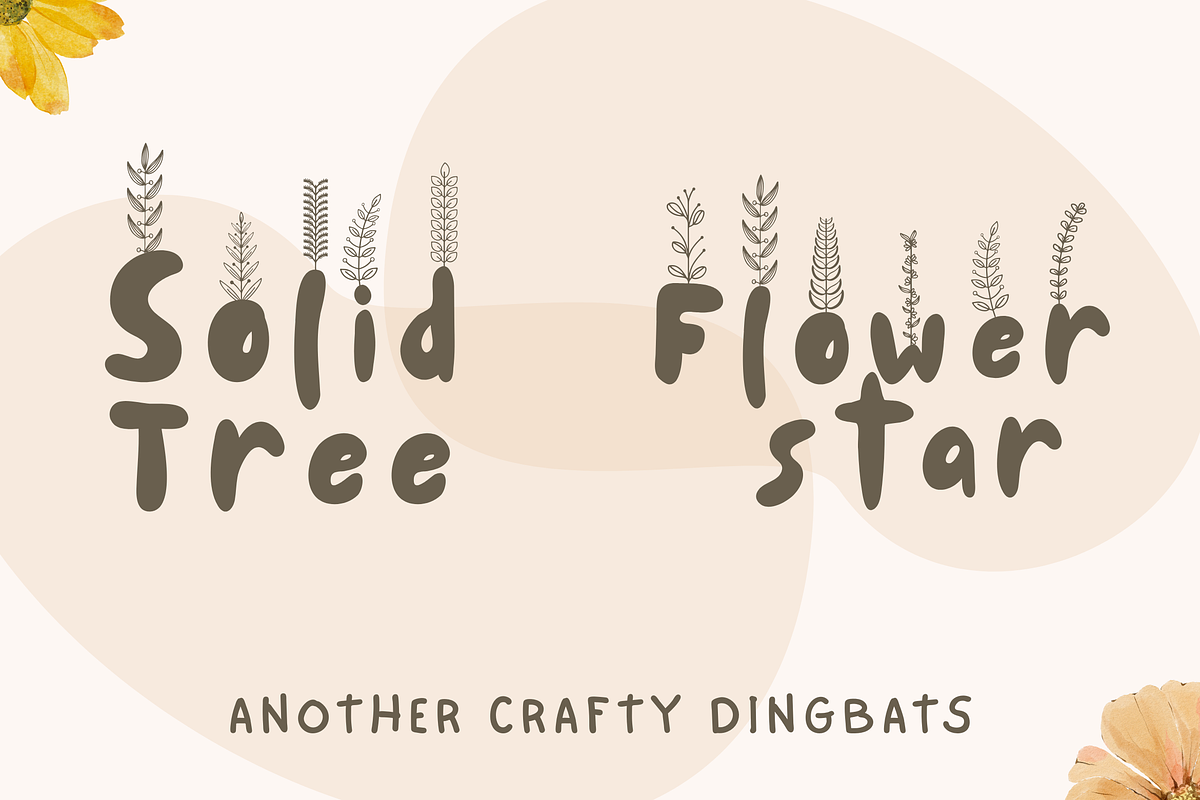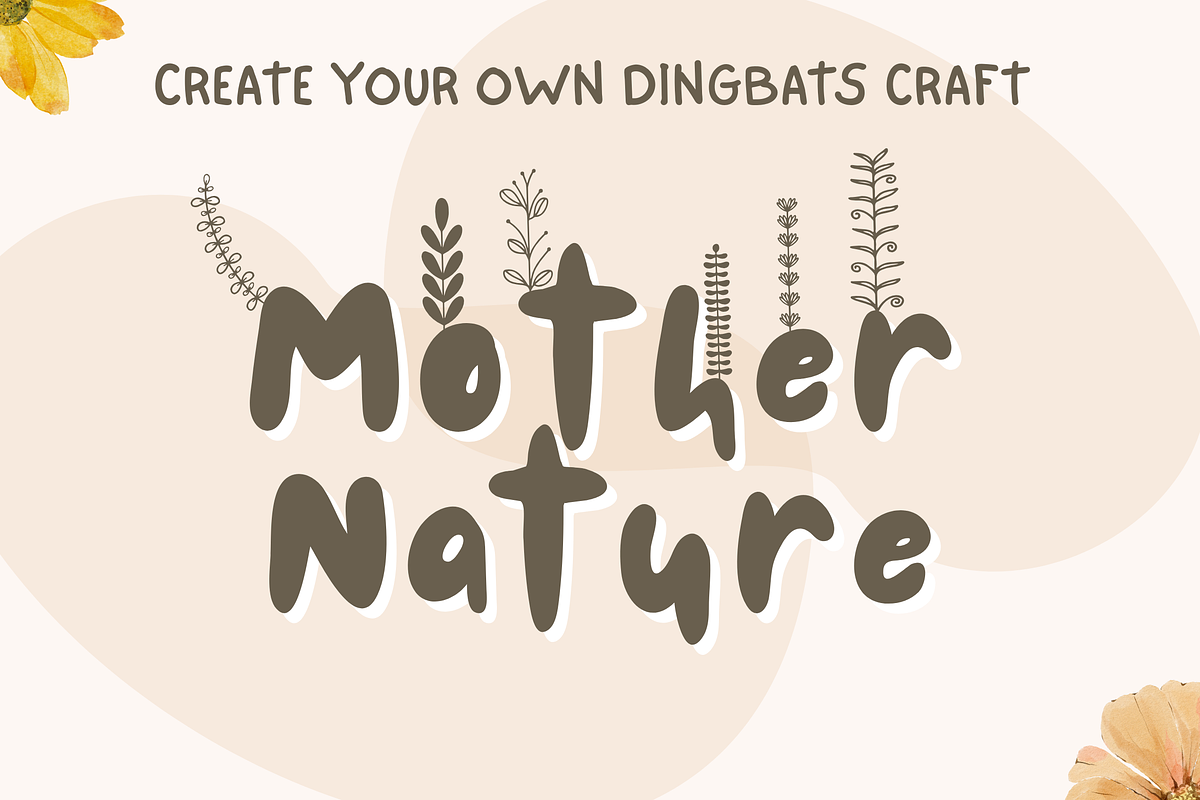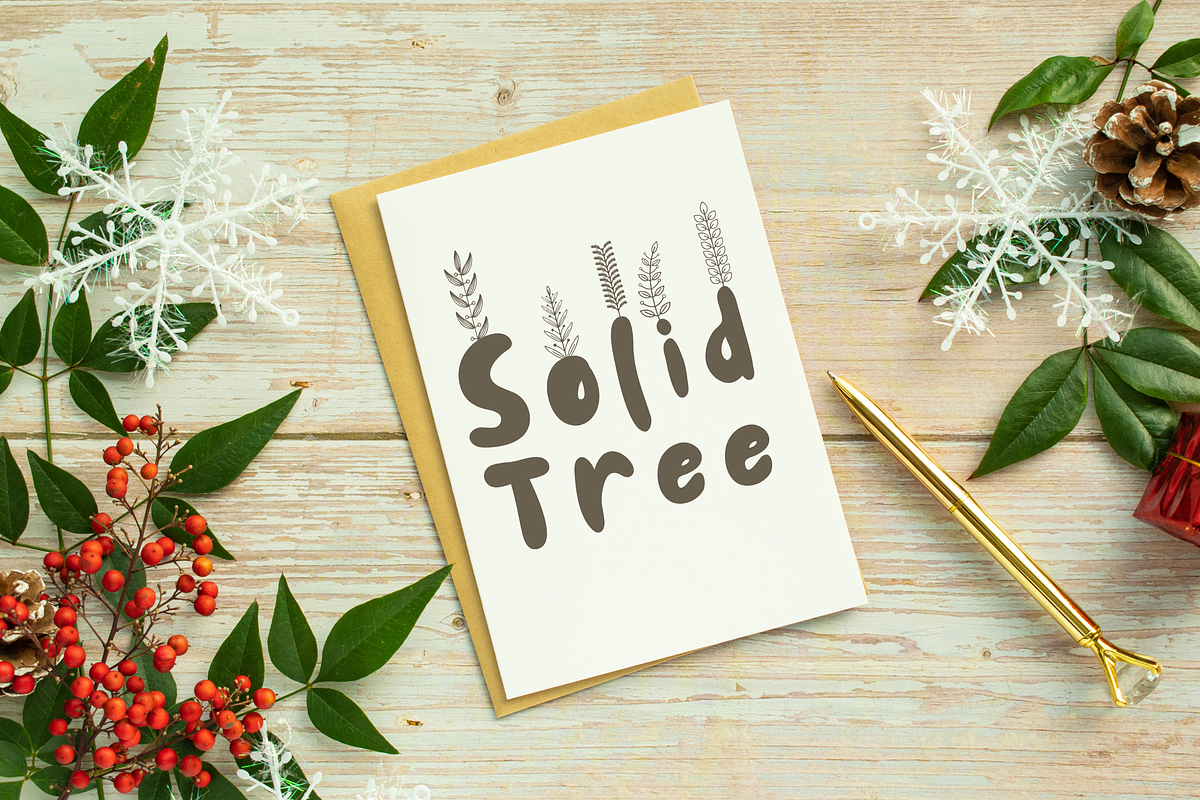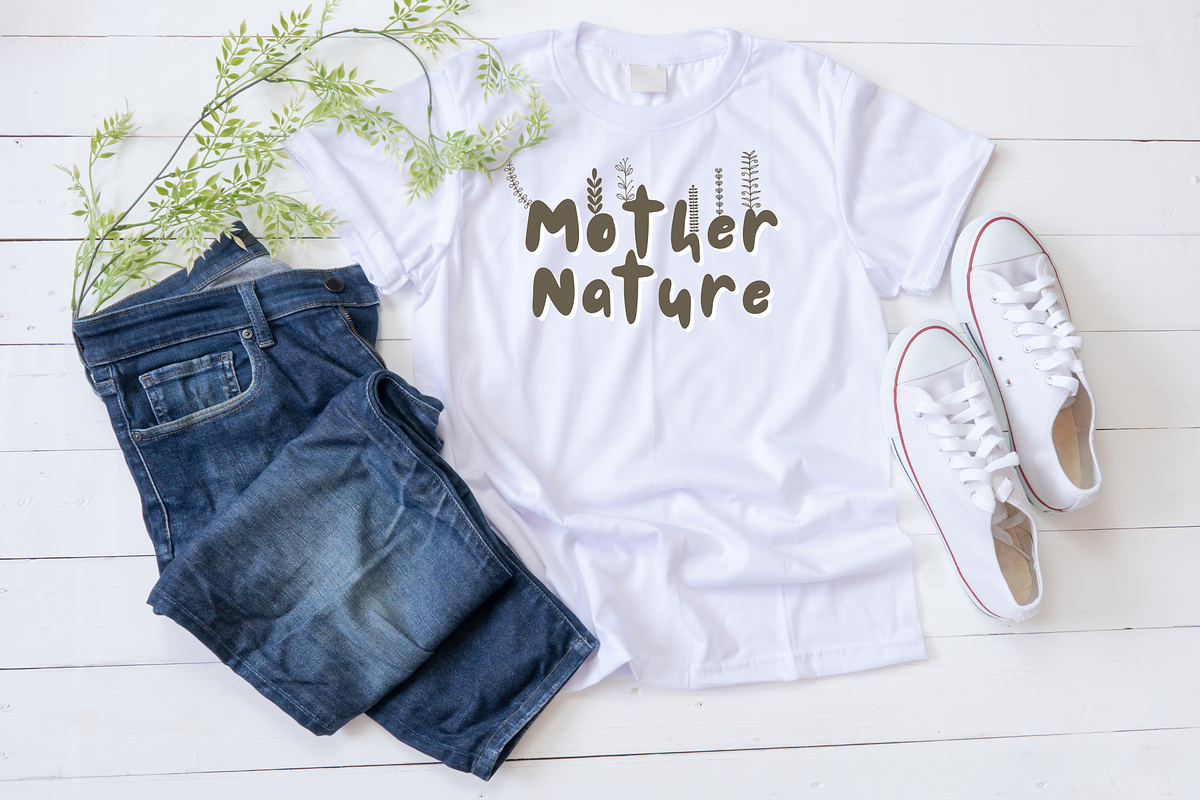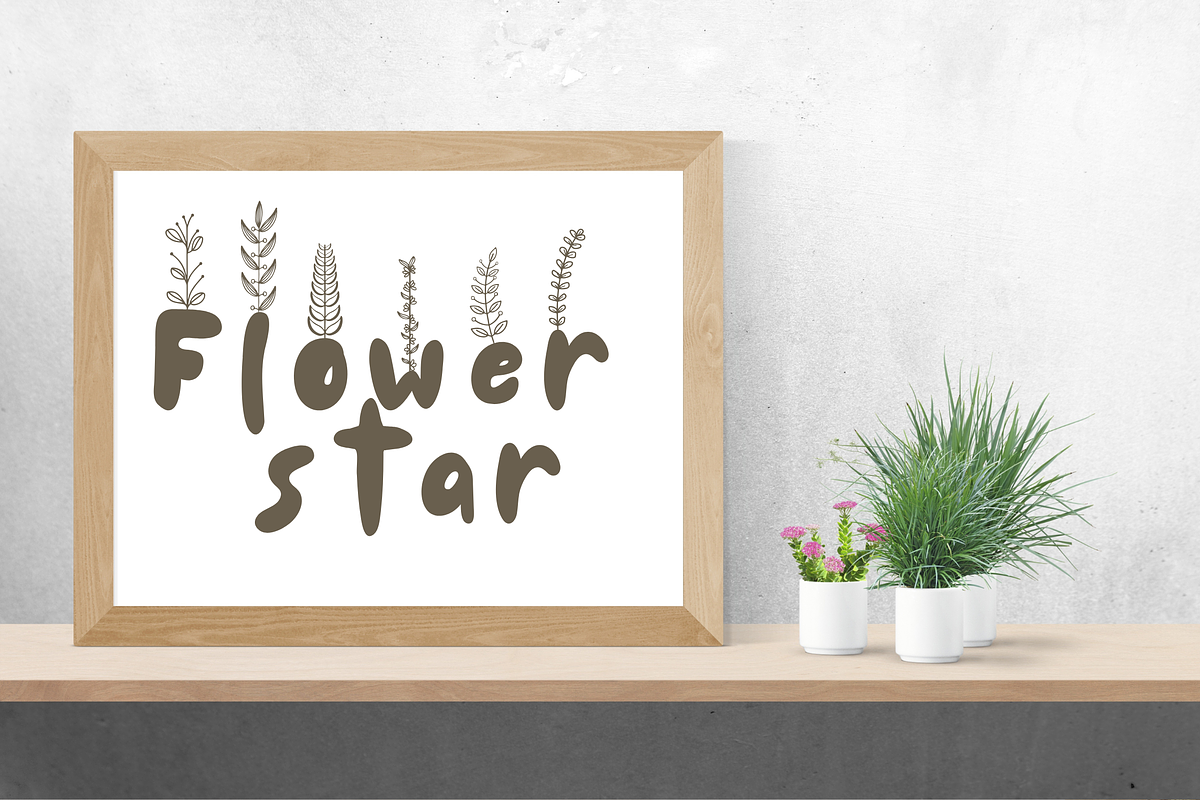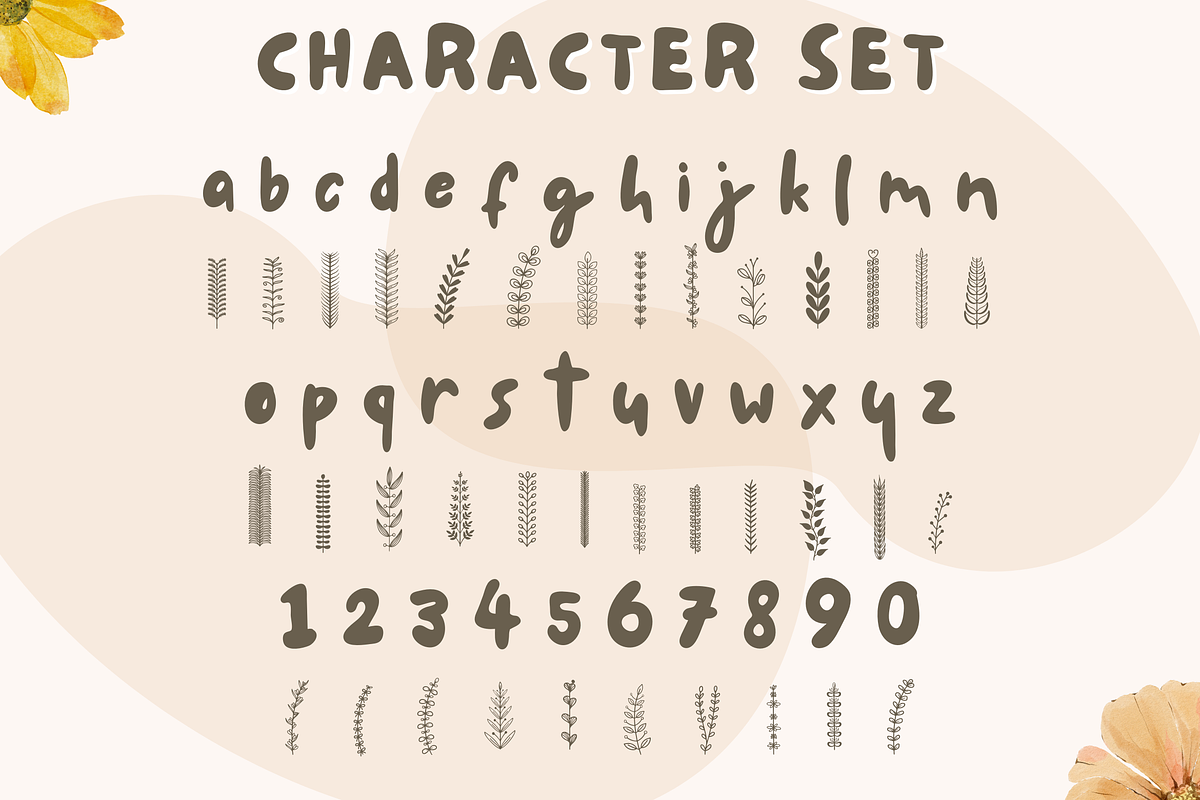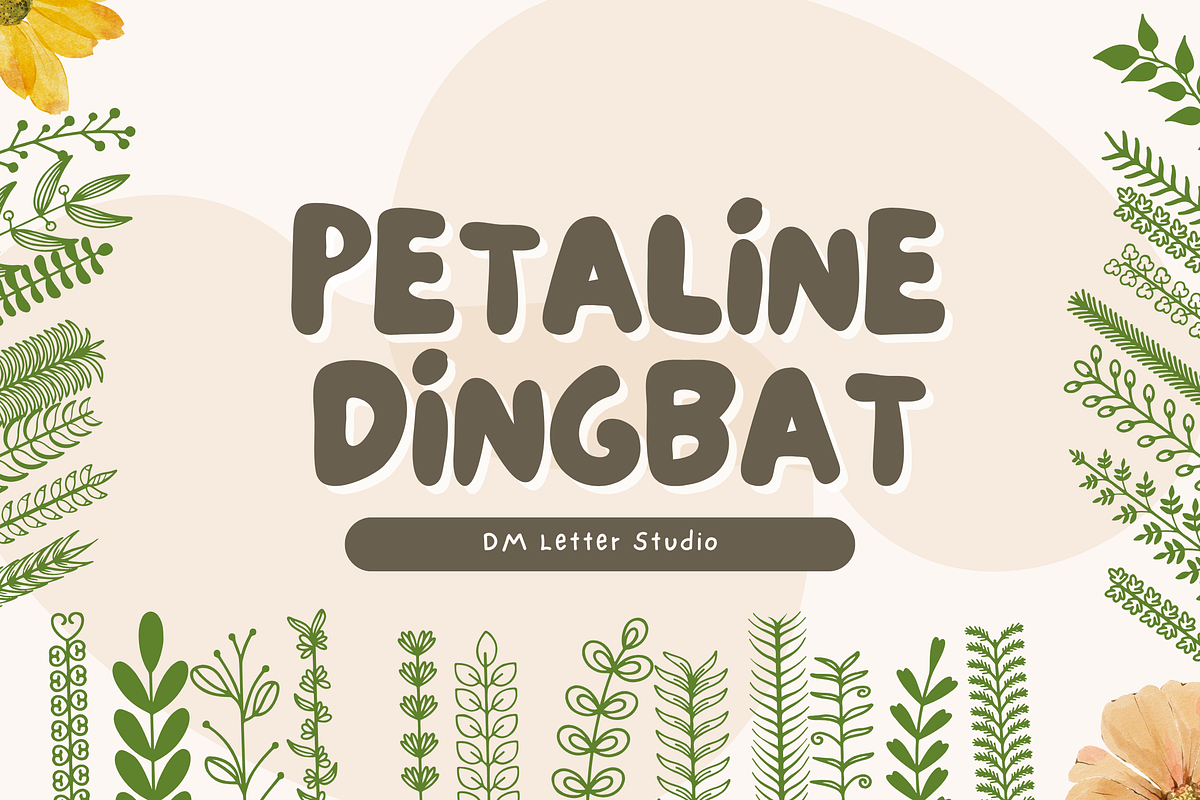
Petaline Dingbat
Petaline Dingbat – Whimsical Floral Vector Font for Crafters
Petaline Dingbat is a charming floral dingbat font packed with hand-drawn botanical illustrations perfect for every design season. As a floral dingbat font, it includes a variety of leafy sprigs, whimsical blossoms, elegant wreaths, and decorative nature-inspired symbols—ideal for logos, invitations, packaging, Cricut crafts, and more.
From wedding stationery to boho product labels, Petaline Dingbat adds a natural, handmade touch that elevates your work. Each glyph is designed to look like an inked floral stamp—clean enough for digital use but also perfect for cutting machines and print work. Whether you’re designing a spring greeting card or a farmhouse-style wall art, this font brings elegance and personality without needing any additional clipart.
Petaline Dingbat is incredibly easy to use. Just type letters or numbers, and they’ll display floral icons instead of regular characters. The font works like a pictogram set, but without the hassle of separate PNG or SVG files—making it lightweight, fast-loading, and highly flexible.
Use it for wedding invites, thank-you cards, journaling, stickers, T-shirt designs, branding kits, and more. It’s the perfect floral set to keep in your font library all year round.
✨ Features
Hand-drawn floral symbols and botanical elements
Type-based design—no need to insert external SVGs
Instant usability for logos, packaging, invites, and wall art